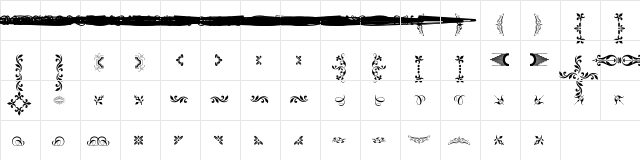
MuseeOrnaments Regular
Design Context for MuseeOrnaments Typeface
MuseeOrnaments is built around its visual character rather than neutral utility — its distinctive forms are designed to make an impression at display sizes.
Font Pairing: Pair with a clean neutral sans-serif for body copy to let MuseeOrnaments's character lead without overwhelming the composition.
Pro Tip: Treat MuseeOrnaments as the centrepiece of your typographic hierarchy. One strong heading set in a decorative face can carry an entire layout.